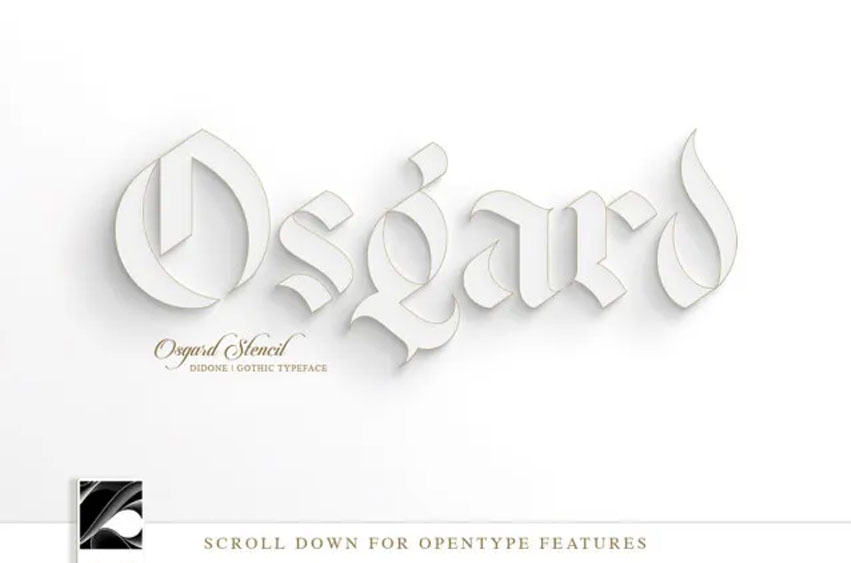
Osgard Font is a contemporary take on the traditional black letter style, combining boldness with readability. Forging the two creates a far softer, more versatile, fashion-based typeface; with beautifully distinct qualities. Strong influences came from The Ribble Valley, not far from our location, where J.R.R. Tolkien worked on The Lord of the Rings.
Landmarks such as Stonyhurst, the River Shirebourn, and the surrounding areas are great places for Medieval/Fantastical inspiration.